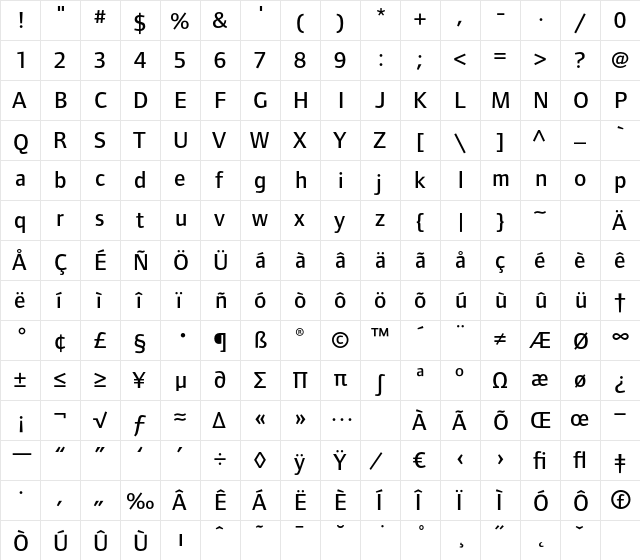
FoundryFormSans Medium
Design Context for FoundryFormSans Typeface
FoundryFormSans offers clean, dependable letterforms without strong stylistic allegiance, making it a practical choice for designers who need flexibility.